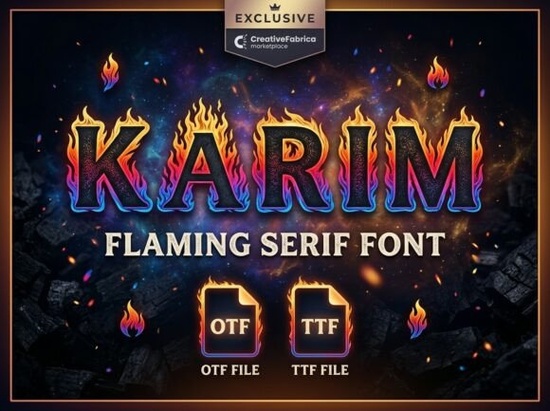
Designers, crafters, and small business owners looking for a bold and eye-catching typeface might find the Karim Font to be a perfect fit. This unique serif font combines a strong, classic structure with dynamic fire and ember textures, making it ideal for projects that need a fiery or intense look. Whether you're creating a gaming logo, a food brand, or a heavy metal band poster, Karim adds a visual punch that stands out.
The Karim Font is part of a growing collection of display fonts that cater to creative professionals who want to make a statement. If you're exploring other options, you might also consider Noah Font for a more modern feel, or vintage distressed fonts if you're going for a retro aesthetic. Each of these fonts has its own personality and use case, but Karim brings something special to the table with its flame-inspired design.
One of the standout features of Karim is its ability to convey energy and emotion through typography. The fire elements are not just decorative they add depth and movement to any design. This makes it a great choice for projects that need to communicate intensity, whether it's a movie poster, a sports team logo, or a high-impact advertisement. The font works well in both digital and print formats, offering flexibility for different applications.
If you're interested in similar styles, you might want to check out Athletic College Outline Font for a more rugged look, or Always Chunky Font for a bold, no-nonsense style. These fonts, like Karim, are designed to make a strong visual impact and can be used in a variety of creative contexts.
What Makes Karim Unique?
Karim isn't just another serif font it's a blend of traditional typography and modern design elements. The fire and ember textures are carefully integrated into the letterforms, giving each character a sense of motion and heat. This level of detail makes the font stand out in a crowded market of generic display fonts. It’s especially useful for branding that needs to feel powerful and memorable.
For those who work with logos, posters, or marketing materials, Karim offers a way to express energy and passion without relying on images. The font itself becomes the focal point, adding visual interest and emotional weight to the design. It’s also versatile enough to work in different color schemes, from dark and dramatic to bright and attention-grabbing.
Best Uses for Karim Font
- Gaming Logos: Karim’s fiery aesthetic matches the high-energy vibe of many video games.
- Food Branding: The intense look can highlight spicy or bold flavors in restaurant or product designs.
- Music Band Art: Perfect for heavy metal or rock bands that want a strong visual identity.
- Cinematic Posters: Adds drama and intensity to movie or event promotions.
Whether you're working on a personal project or a commercial design, Karim provides a fresh and powerful option for your typography needs. Its combination of classic structure and modern flair makes it a valuable addition to any designer’s toolkit.
Before using Karim in a final design, make sure to test it in different sizes and backgrounds to see how it performs. Some textures may appear more prominent at smaller sizes, so adjusting the design accordingly can help maintain clarity and readability. Always consider the context in which the font will be used to ensure it aligns with the overall message and tone of the project.
For a quick reference, here's a checklist to keep in mind when using Karim:
- Test the font in various sizes and formats.
- Ensure it complements the rest of your design elements.
- Check for readability, especially in smaller text.
- Use it for high-impact areas where visual energy is needed.
By understanding the strengths and limitations of Karim, you can make the most of its unique design and create compelling visuals that capture attention and convey the right message.